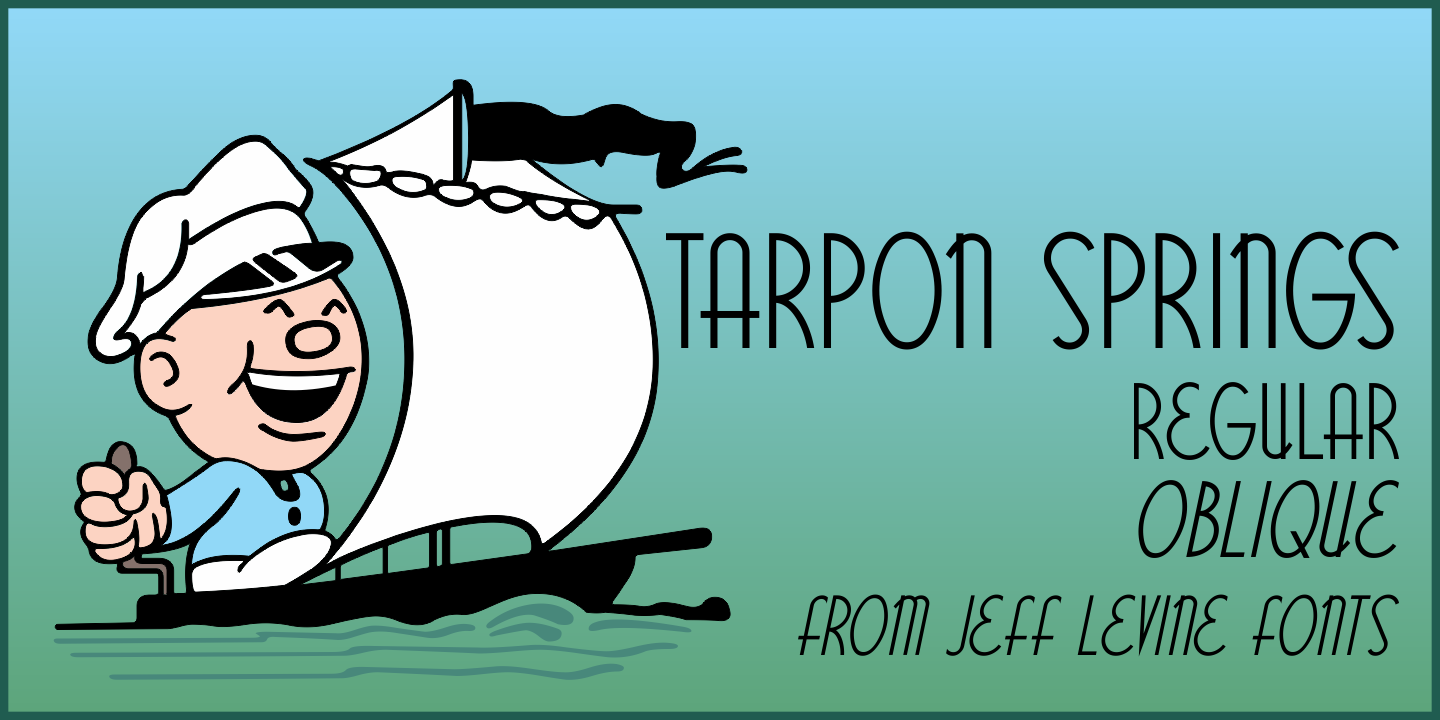
TARPON SPRINGS JNL
Designed by Jeff Levine, Tarpon Springs JNL is an art deco and display sans font family. This typeface has two styles and was published by Jeff Levine Fonts.
Sometimes inspiration for font designs can come from the strangest sources.
An early-1960s Canadian magazine ad for a brand of birth control pills featured the least likely spokesperson – Annette Funicello (“starring in “Beach Blanket Bingo” and “How to Stuff A Wild Bikini”).  The text was hand lettered in an Art Deco-inspired sans serif type design.
Tarpon Spring JNL is available in both regular and oblique versions.